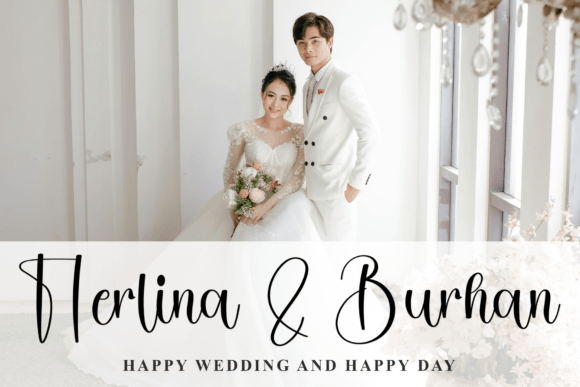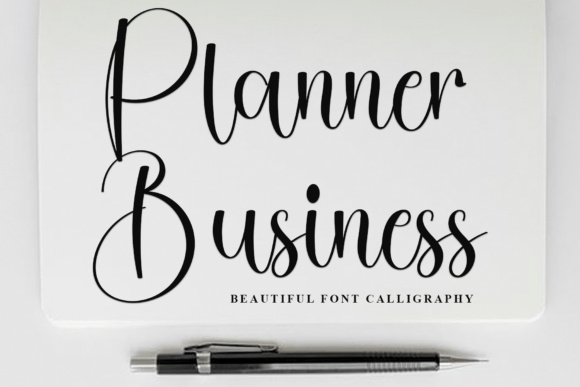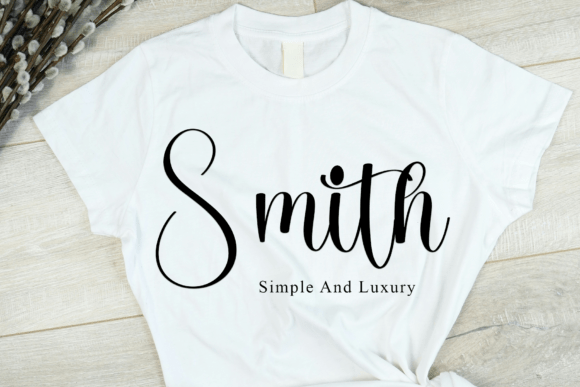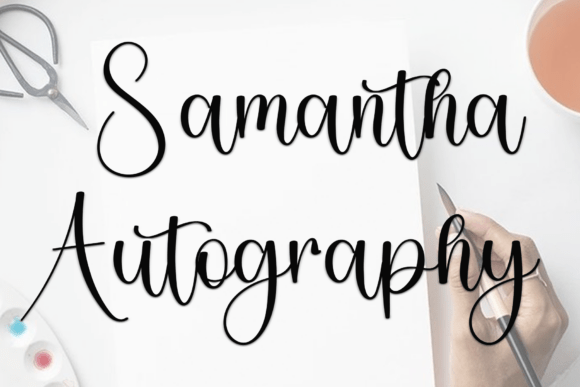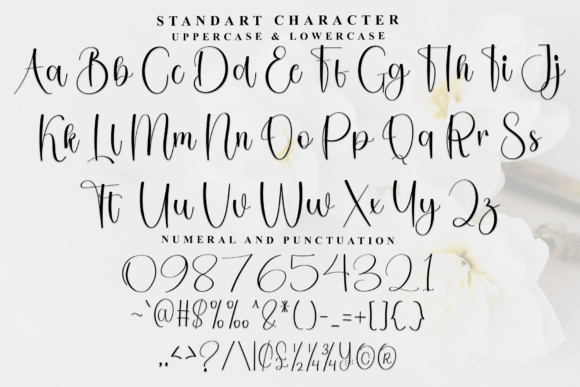
Kitchen Handmade Font – Free Download
Introduction to Kitchen Handmade Font
Kitchen Handmade is a festive and merry typeface that captures the spirit of the holiday season.
Key Features of Kitchen Handmade Font
Why Choose Kitchen Handmade Font?